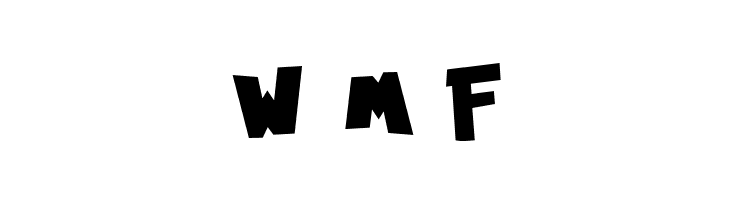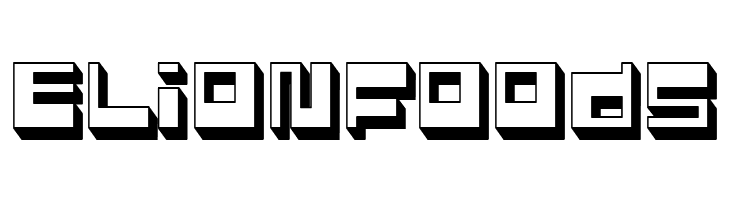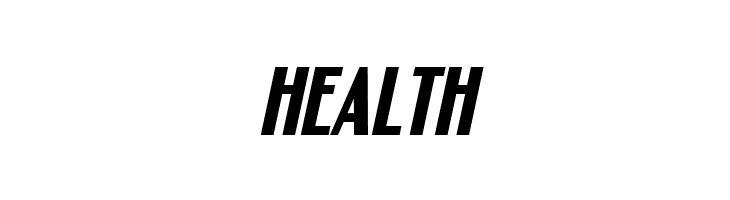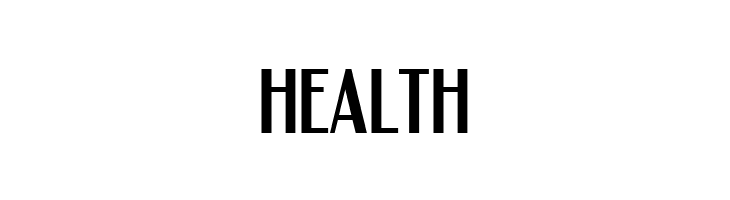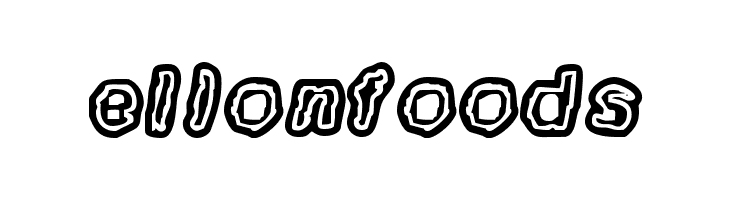
A modern outline serif font with sharp, angular serifs and a three-dimensional effect.
A playful, bubble-like font with whimsical leaf accents.
A bold, playful font with a cartoon-like, energetic style.
A bold, brush-style handwritten font with dynamic strokes.
A bold, jagged font with a hand-drawn, chaotic style.
A bold, geometric font with a 3D polygonal design.
A playful, bold font with a hand-drawn, outlined style.
Decorative font with Winnie the Pooh character illustrations as glyphs.
A bold, playful font with thick, rounded edges and a whimsical style.
A playful, bold font with characters encased in circles, perfect for fun and engaging designs.
A playful, cursive handwritten font with smooth, connected characters.
A bold, decorative font with shield-like backgrounds and diamond embellishments.
A playful, heart-themed decorative font with bold characters enclosed in shield shapes.
A playful, three-dimensional font with a cartoonish, boxy design.
A bold, playful font with thick, rounded letters and a lively style.
A bold, playful font with rounded, thick strokes and a cartoonish style.
A bold, playful font with irregular, hand-drawn shapes and a whimsical style.
The image contains abstract geometric shapes, not a valid font.
A vintage serif font with elegant, slightly irregular strokes.
A bold, vintage serif font with strong strokes and pronounced serifs.
A bold, angular font inspired by ancient runic alphabets.
A narrow, angular font with a Celtic-inspired, decorative style.